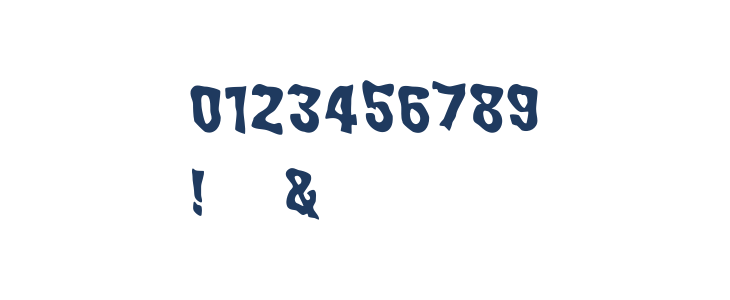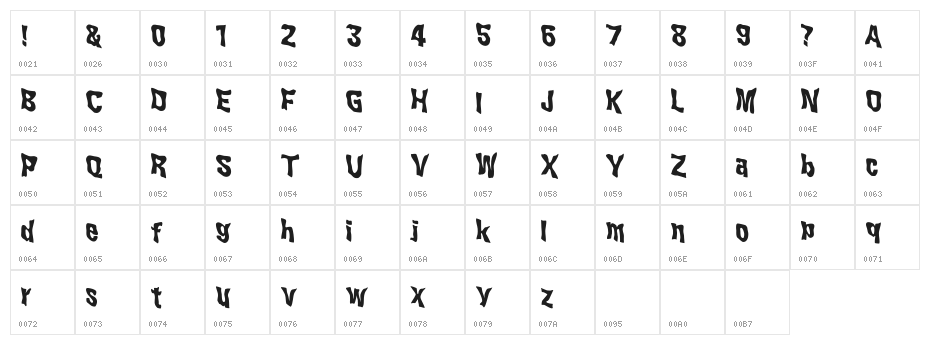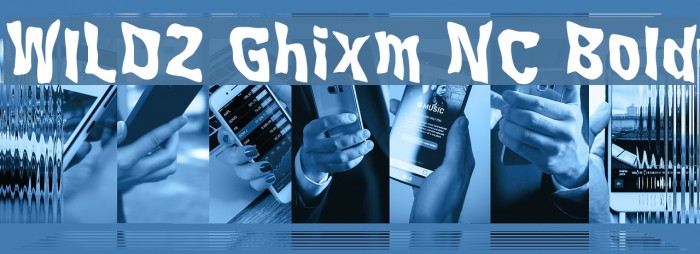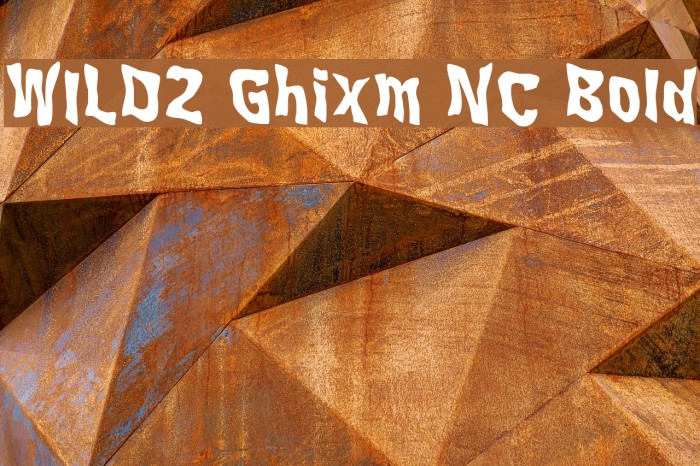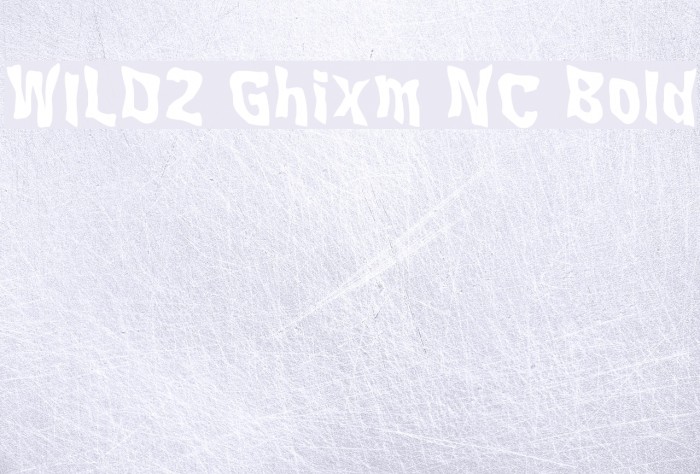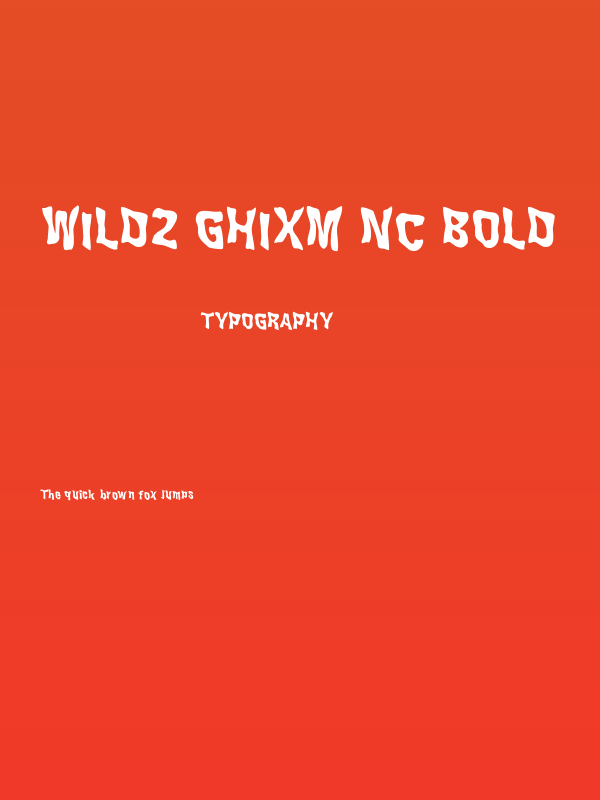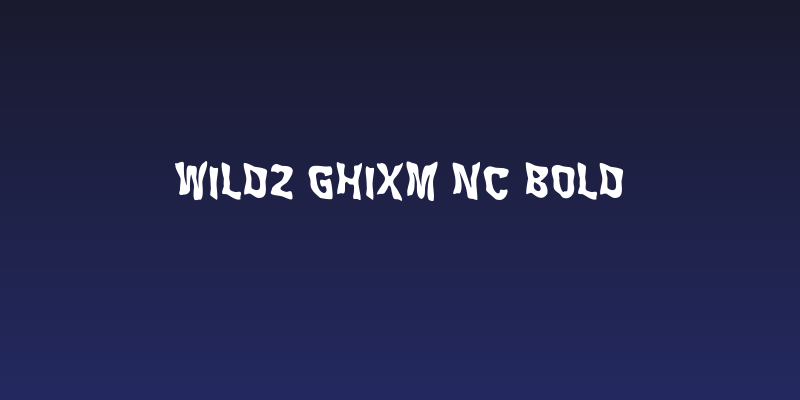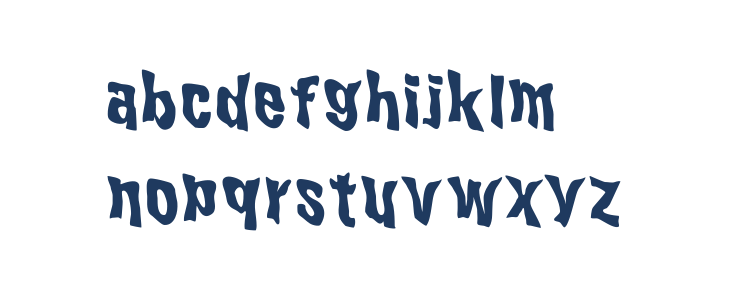
WILD2 Ghixm NC Bold Font
WILD2 Ghixm NC Bold Description
This font features a bold and dynamic style with irregular, jagged edges that give it a wild and untamed appearance. The characters are thick and heavy, creating a strong visual impact. The uppercase and lowercase letters maintain a consistent style, with exaggerated curves and angles that add to the font's unique personality. The numbers and special characters follow the same design principles, ensuring a cohesive look across all elements. This font is perfect for projects that require a bold statement or a touch of rebellious flair.